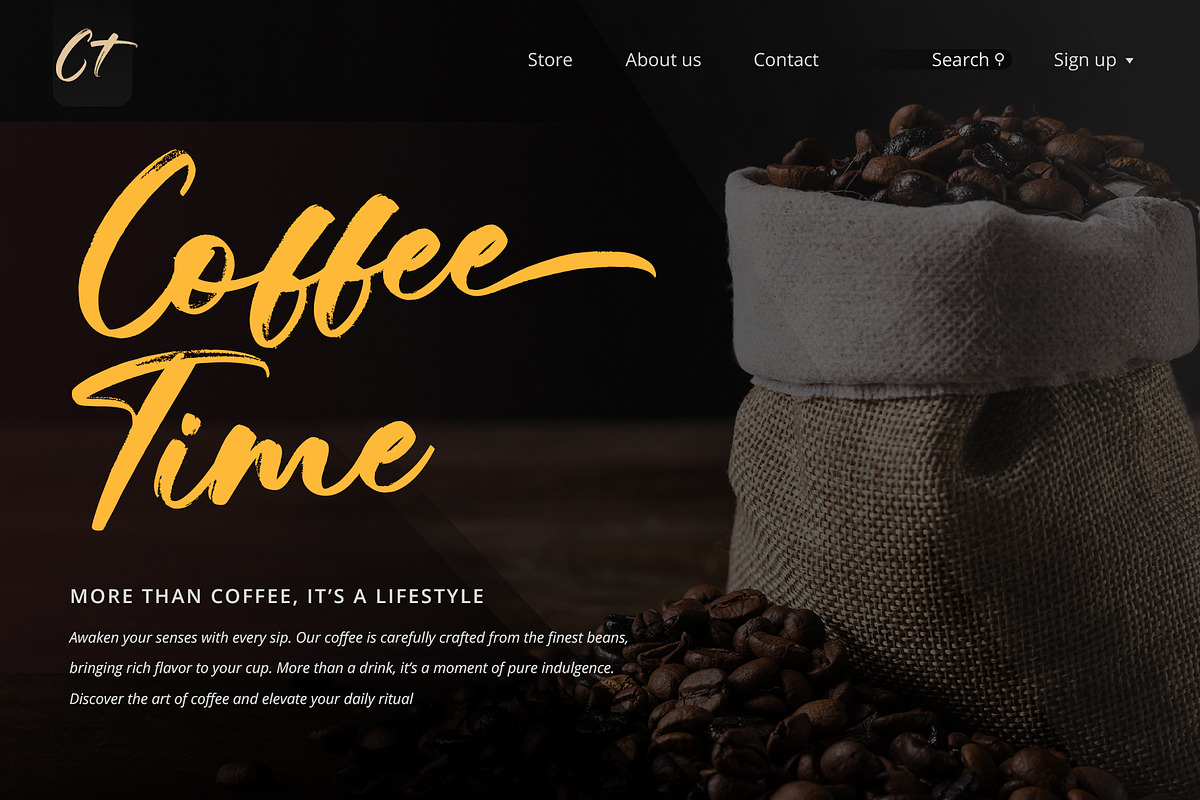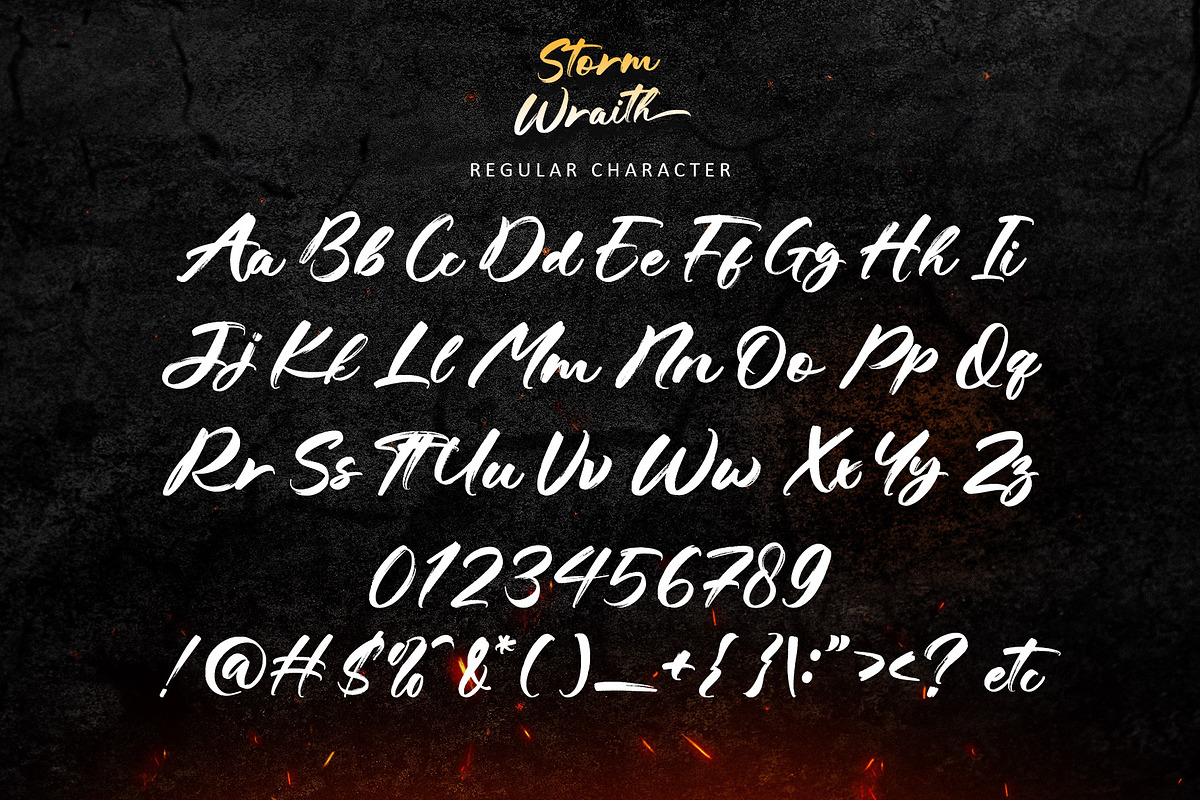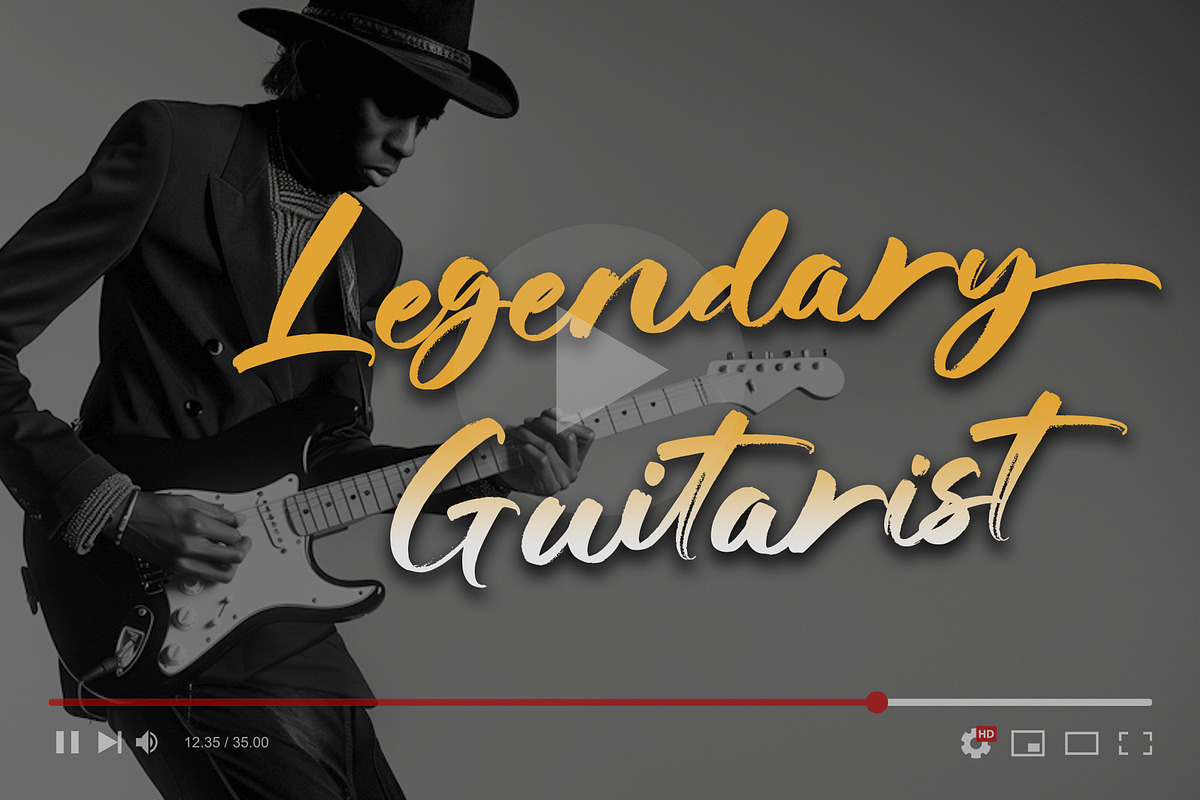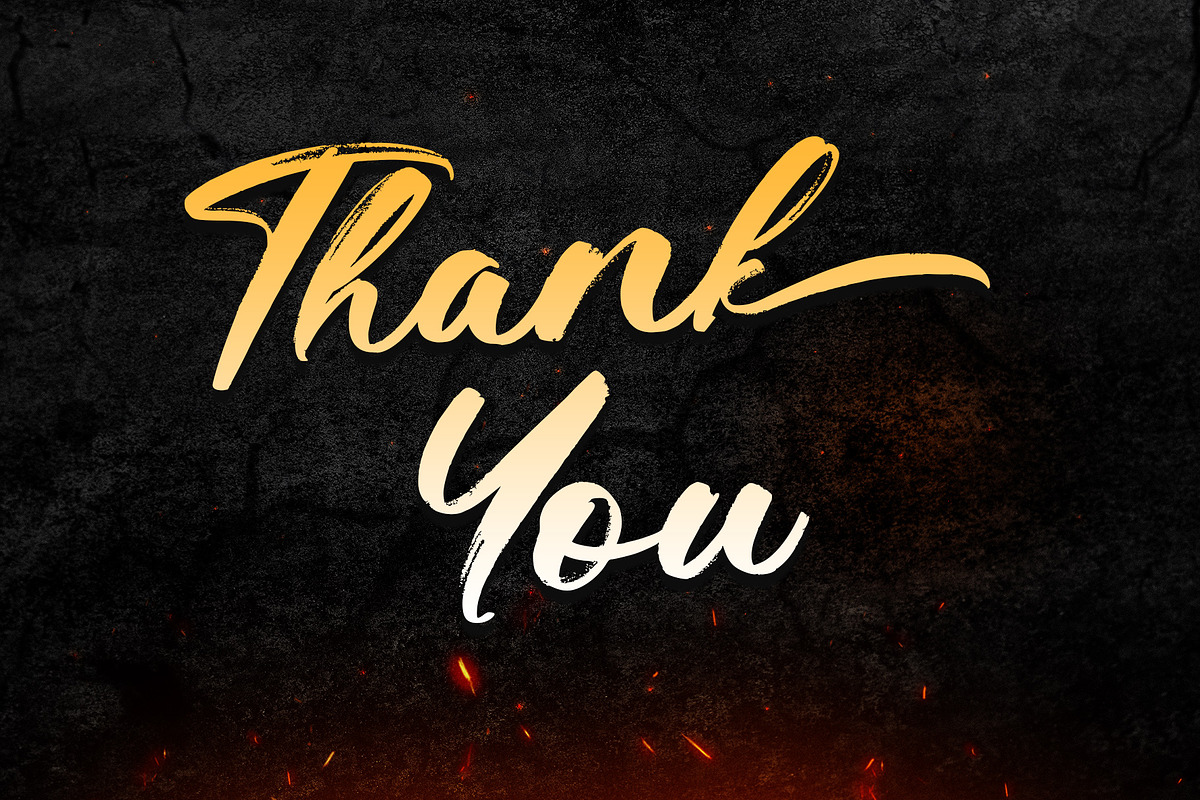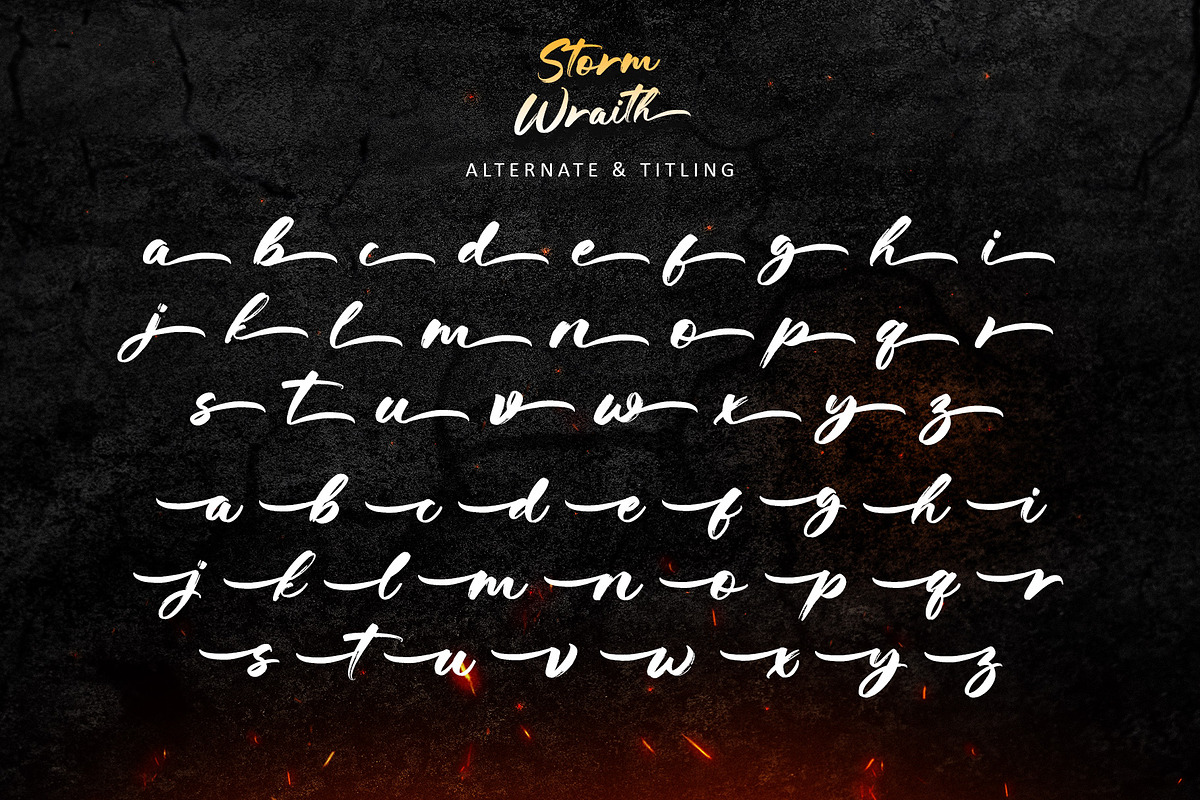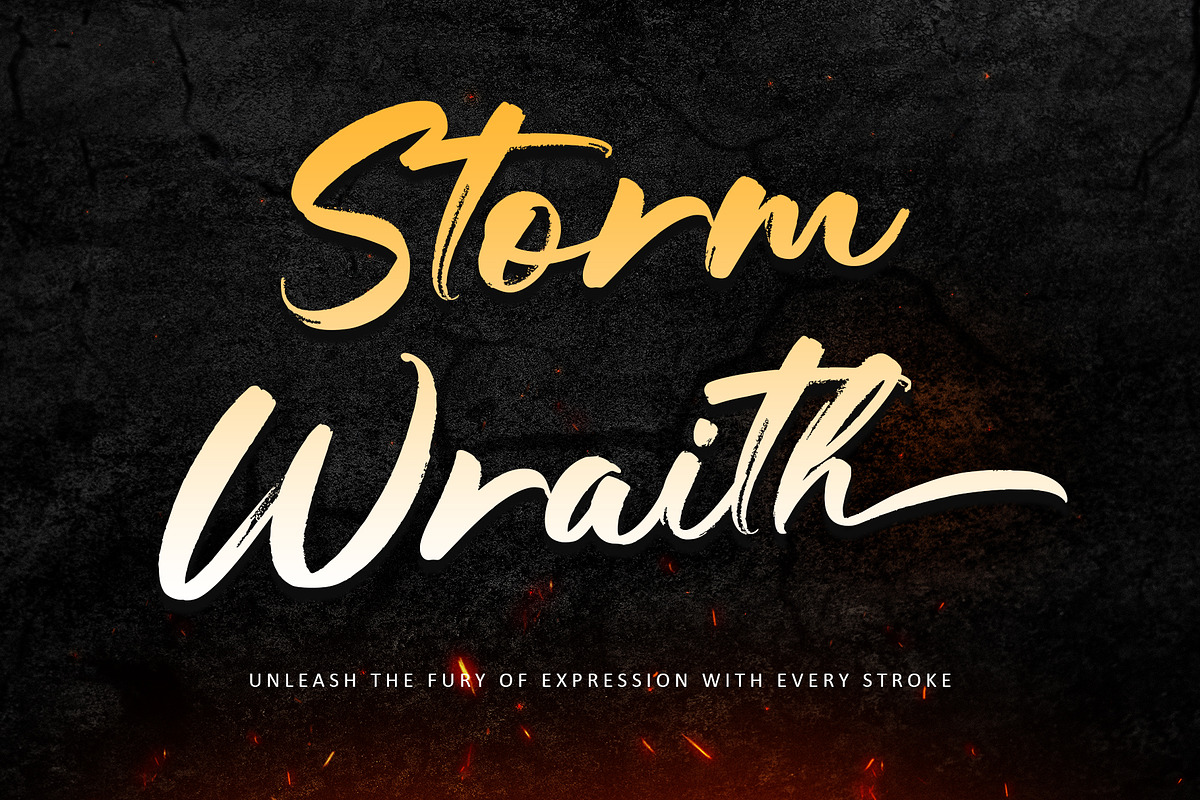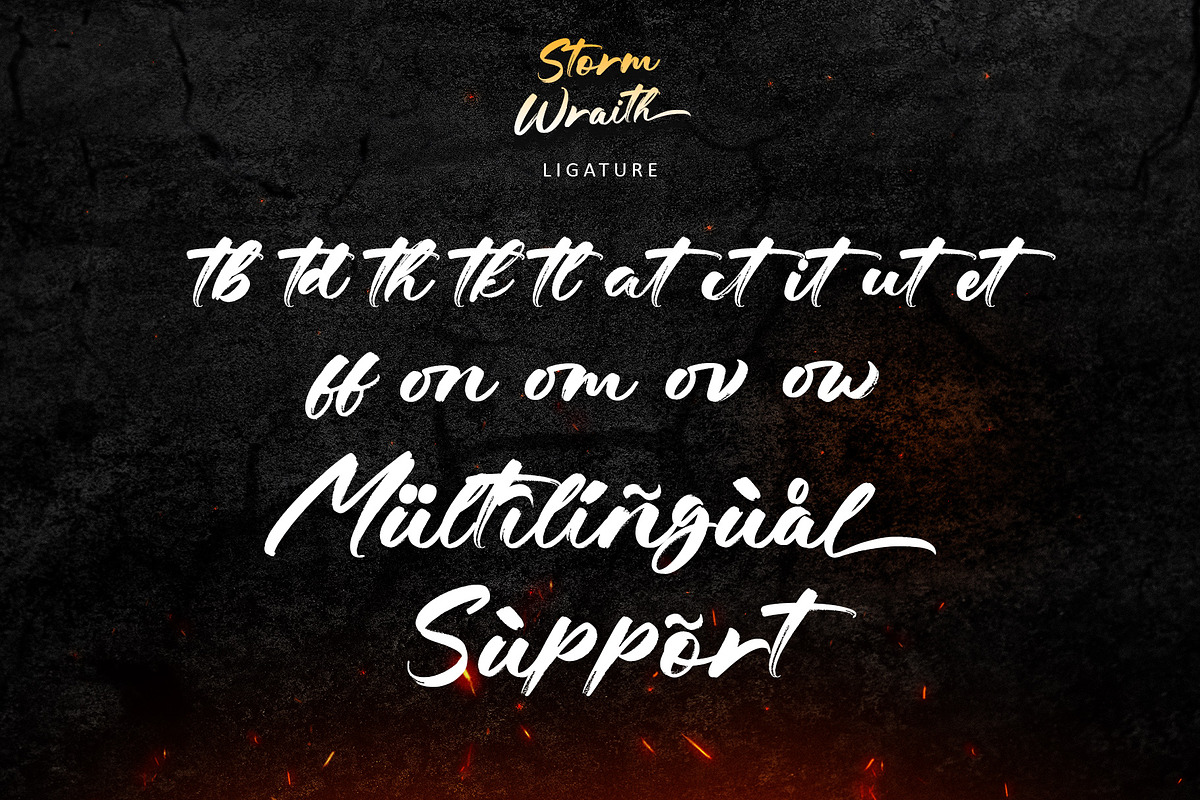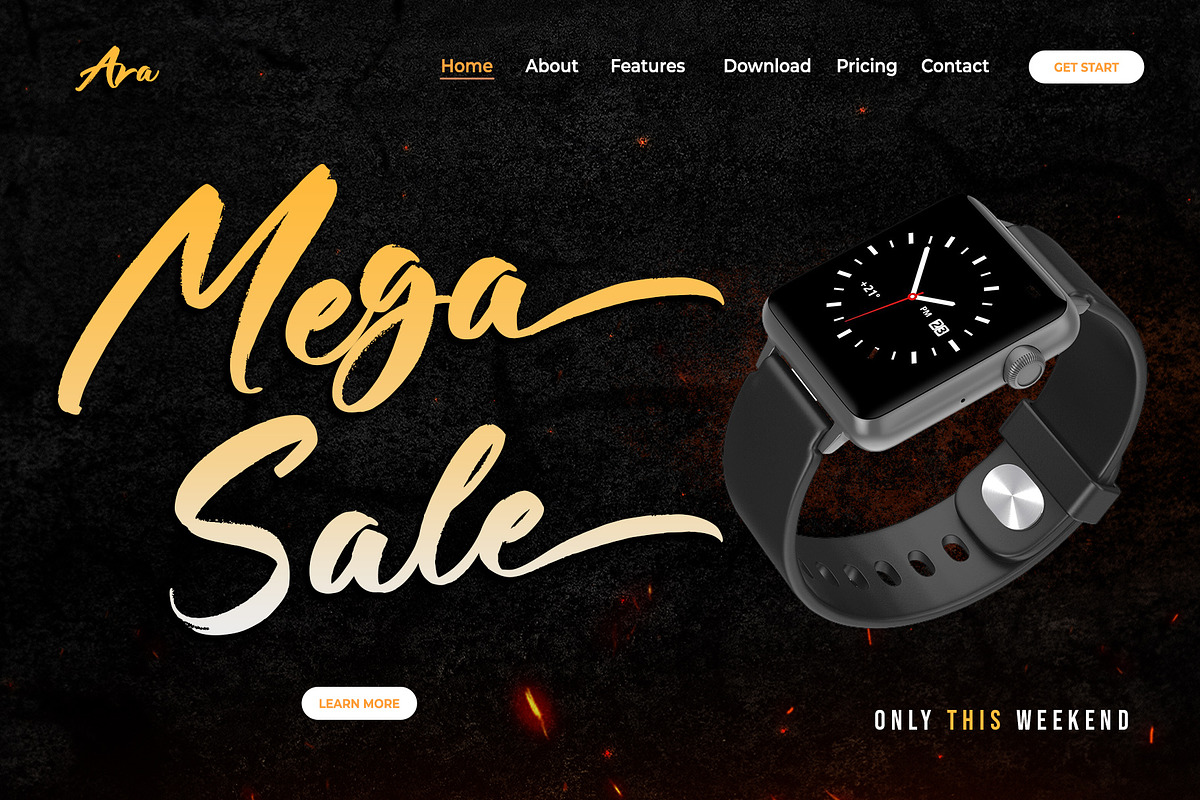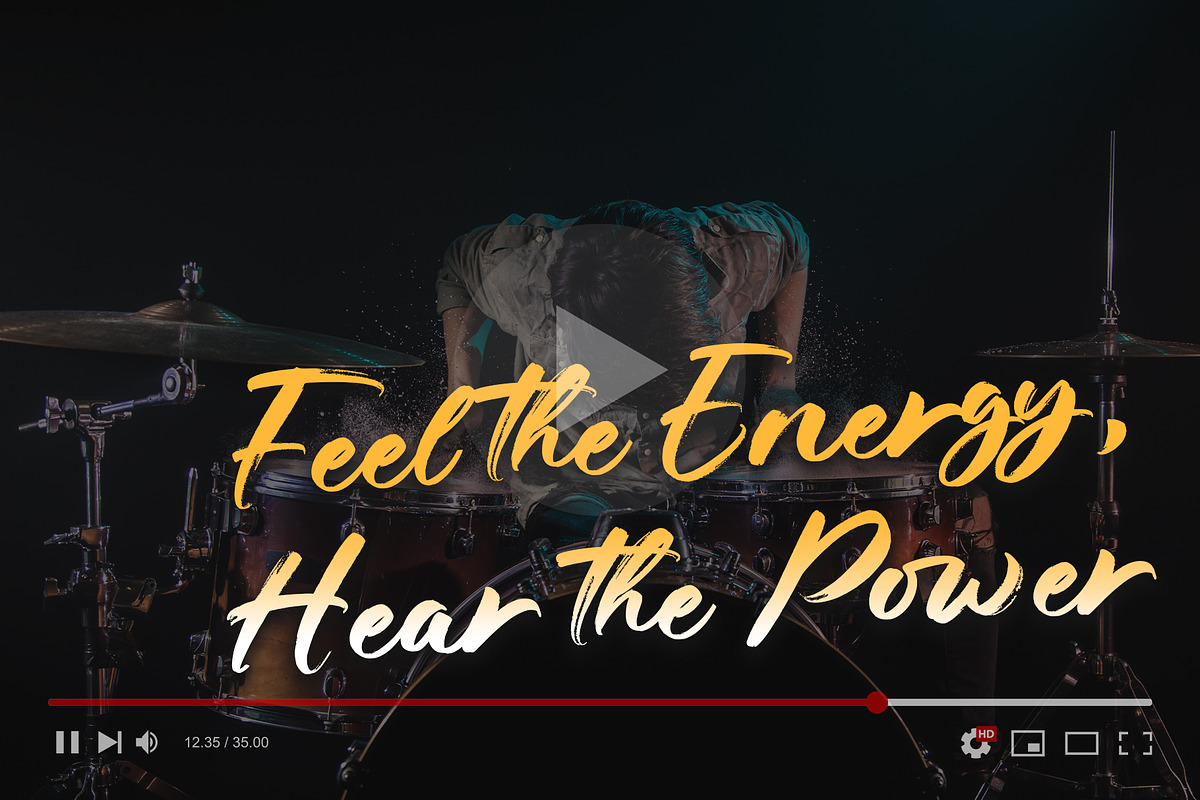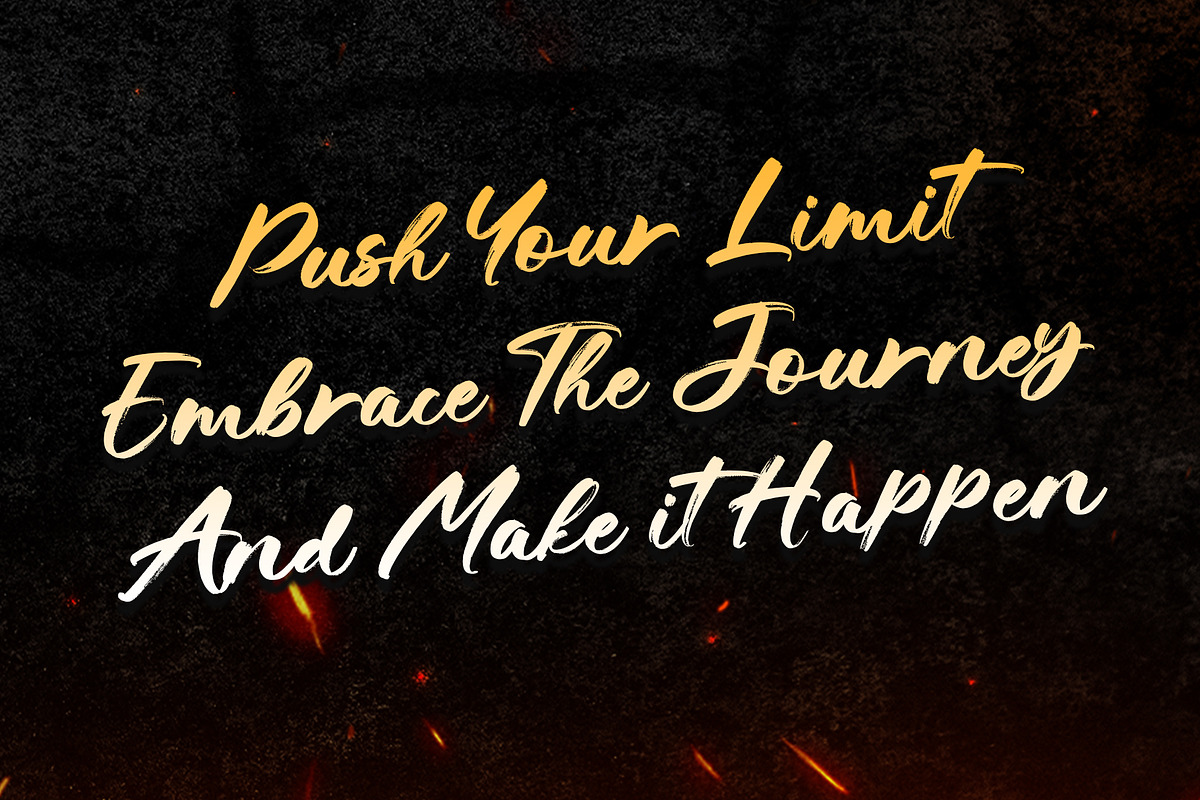
Storm Wraith
Introducing Storm Wraith, a natural brush script font that channels untamed energy and raw creativity into your designs. With bold, sweeping strokes and a rugged texture, this font delivers a striking, weathered aesthetic that commands attention. Perfect for dynamic logos, bold posters, edgy packaging, or any project seeking a fierce and stylish edge, Storm Wraith embodies power and movement. Its fluid letterforms and expressive glyphs infuse every piece with character and intensity. Featuring PUA encoding, it ensures seamless access to all its unique features. Elevate your designs with Storm Wraith, a font that breathes life into bold expression.
- Support multilingual; ä ö ü Ä Ö Ü ß ¿ ¡
- lowercase and uppercase letters
- Ligature, alternate and Titling